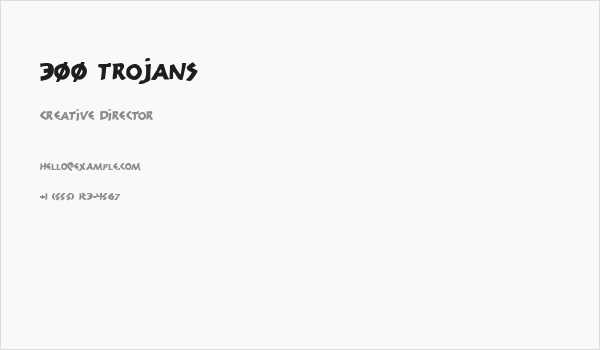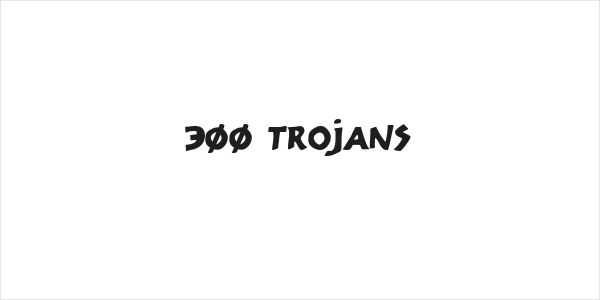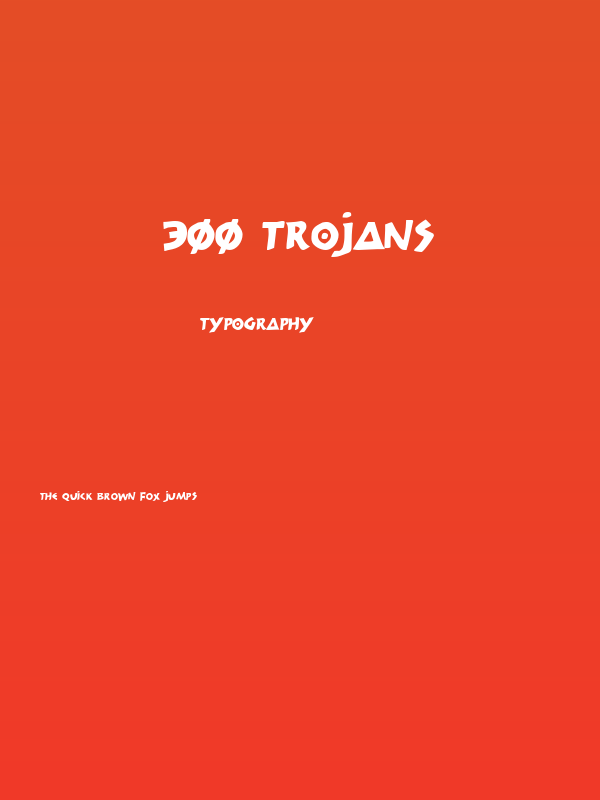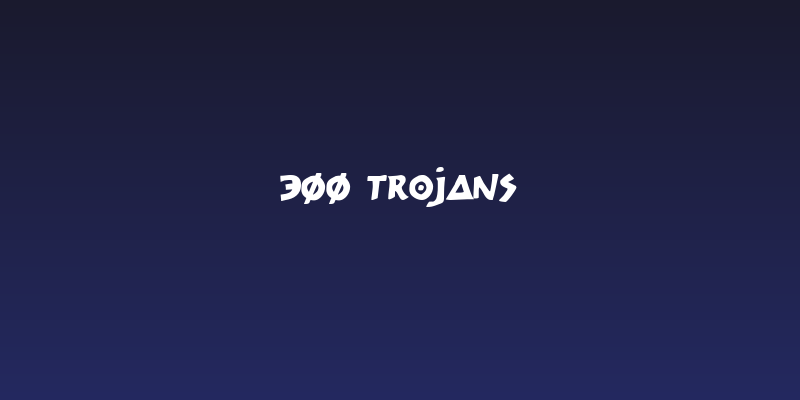
300 Trojans Font
300 Trojans Description
This font features a bold and dynamic style with sharp, angular edges and a strong presence. The uppercase letters are particularly striking, with a design that evokes a sense of power and movement. The lowercase letters maintain the same boldness, ensuring consistency throughout the typeface. Numbers and special characters are crafted with the same attention to detail, making them stand out. The overall design is reminiscent of ancient or historical themes, suitable for projects that require a dramatic and impactful look.
| Proposed Projects | Ideal for movie posters, video game titles, historical event promotions, and branding that requires a strong, impactful presence. |